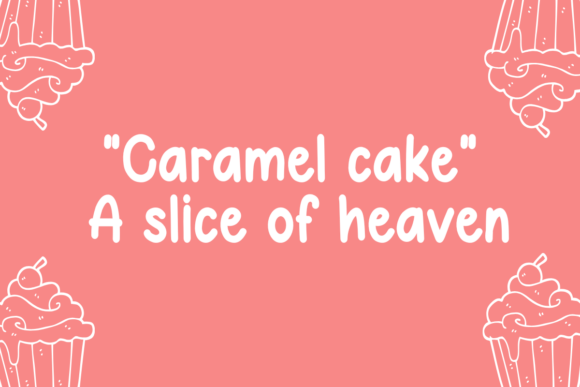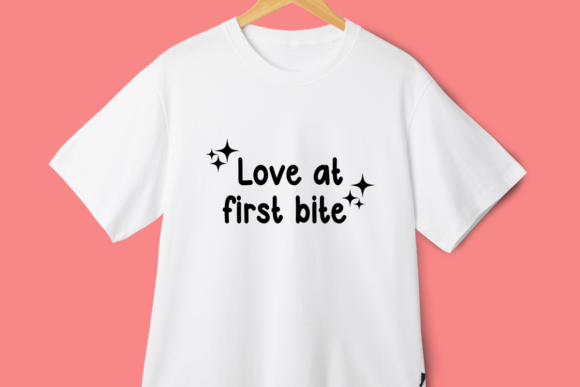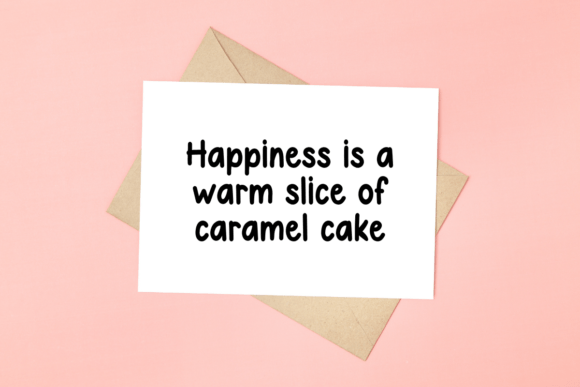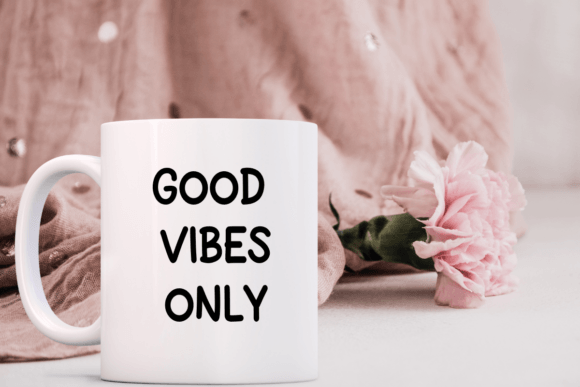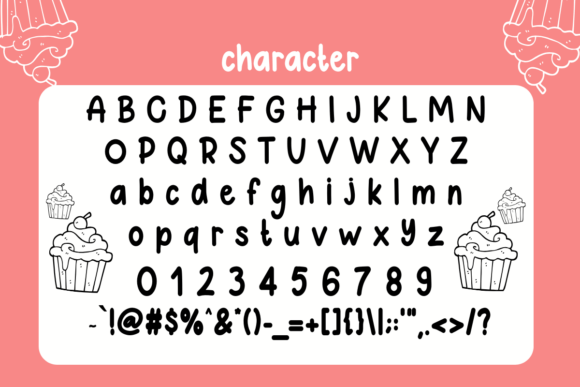
Cake Caramel Font: The Perfect Choice for Creative Projects
Are you a designer or crafter looking for a fun and versatile font to elevate your creative projects? Look no further than Cake Caramel Font! This sans serif font is perfect for a wide range of applications, from memos and journals to cards, invitations, and scrapbooks. In this article, we’ll explore the features and benefits of Cake Caramel Font, and show you how it can add a touch of whimsy and personality to your designs.
What is Cake Caramel Font?
Cake Caramel Font is a modern sans serif font that is both fun and elegant. Its clean lines and simple shapes make it easy to read and versatile enough to use in a variety of contexts. Whether you’re creating a memo, a journal, or a card, Cake Caramel Font is the perfect choice. Its friendly and approachable feel makes it ideal for designs that need a personal touch.
Features of Cake Caramel Font
Cake Caramel Font has several features that make it a standout choice for designers and crafters. Some of its key features include:
- Fun and playful design: Cake Caramel Font has a unique and playful design that adds a touch of whimsy to any project.
- Sans serif: The font’s clean lines and simple shapes make it easy to read and versatile enough to use in a variety of contexts.
- Multilingual support: The font supports multiple languages, making it a great choice for international designs.
Uses for Cake Caramel Font
Cake Caramel Font is a versatile font that can be used in a wide range of creative projects. Some of the most popular uses for this font include:
- Memos and journals: Cake Caramel Font is perfect for creating fun and colorful memos and journals.
- Cards and invitations: The font’s playful design makes it ideal for creating cards and invitations for special occasions.
- Scrapbooks: Cake Caramel Font is a great choice for scrapbooking, adding a personal touch to your designs.
- Interior KDPs: The font is also suitable for creating interior KDPs (Kindle Direct Publishing) books, such as journals, planners, and notebooks.
- Holiday designs: Cake Caramel Font is perfect for creating holiday designs, such as Christmas, Halloween, and Thanksgiving cards and decorations.
- Funky and fall designs: The font’s playful design makes it ideal for creating funky and fall-themed designs, such as laser cut designs, tumbler wraps, and seamless patterns.
Tips for Using Cake Caramel Font
Here are some tips for getting the most out of Cake Caramel Font:
- Experiment with colors: Cake Caramel Font looks great in a variety of colors, so don’t be afraid to experiment and find the perfect color scheme for your design.
- Mix and match with other fonts: The font pairs well with other sans serif fonts, so try mixing and matching it with other fonts to create a unique look.
- Use it for headings and titles: Cake Caramel Font is perfect for headings and titles, adding a touch of personality to your designs.
Where to Use Cake Caramel Font
Cake Caramel Font can be used in a wide range of applications, including:
- Digital designs: The font is perfect for digital designs, such as social media graphics, blog posts, and email newsletters.
- Print designs: Cake Caramel Font is also suitable for print designs, such as business cards, brochures, and flyers.
- Crafting projects: The font is a great choice for crafting projects, such as scrapbooking, card making, and journaling.
Cake Caramel Font is a fun and versatile font that is perfect for designers and crafters looking to add a touch of personality to their creative projects. With its clean lines, simple shapes, and playful design, it’s ideal for a wide range of applications, from memos and journals to cards, invitations, and scrapbooks. Whether you’re a seasoned designer or just starting out, Cake Caramel Font is a great choice for anyone looking to add some whimsy and fun to their designs.
- What is Cake Caramel Font?: Cake Caramel Font is a fun sans serif font suitable for a wide range of creative projects.